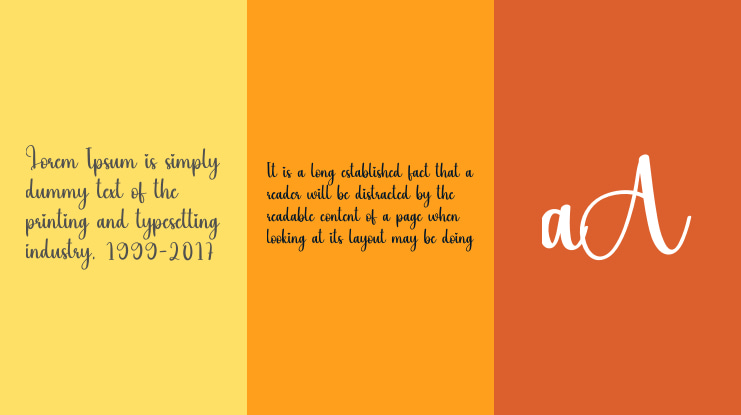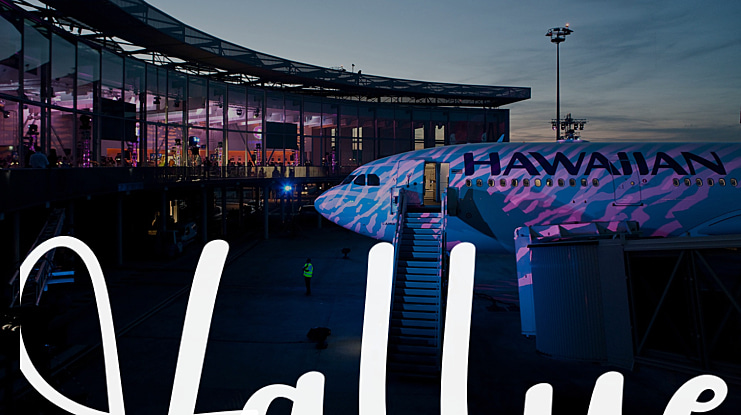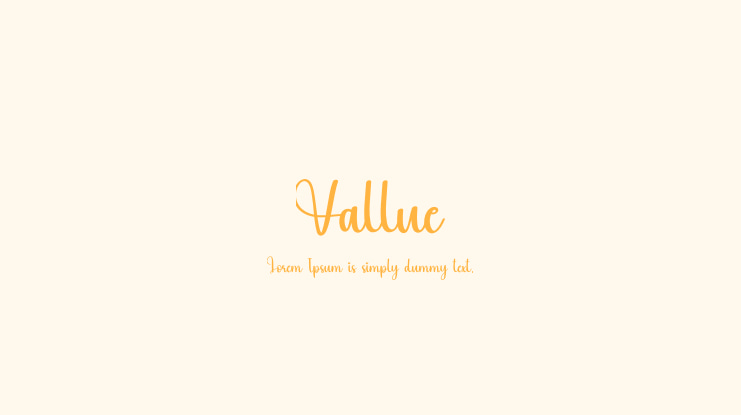
Vallue Font
Our latest collection of stylish letters is perfect for wall displays, wedding invitations, social media logos, advertisements, packaging designs, labels, photography, watermarks, invitations, stationery, and any project that requires elegant handwriting.